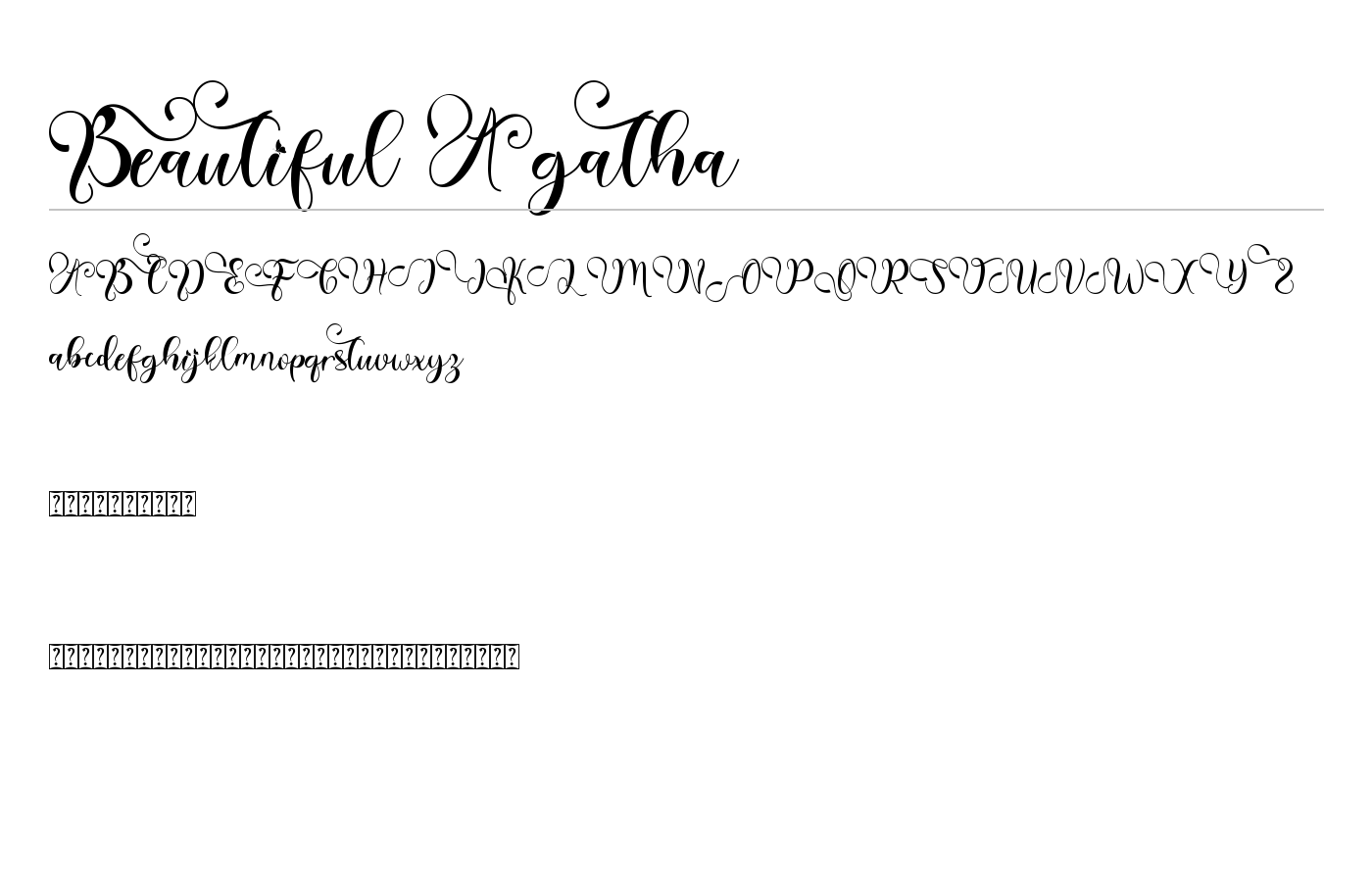
Beautiful Agatha is an elegant, decorative script font with graceful, flowing letterforms and elaborate swirls that give it a luxurious and artistic feel. Its delicate strokes and high contrast create a refined, feminine style ideal for elegant branding, wedding invitations, and sophisticated packaging where a touch of romance and creativity is desired. This font shines in headlines and logos, adding charm and personality to any design that seeks a classic yet whimsical look.
Beautiful Agatha Font
About Beautiful Agatha Font
| Font family | Beautiful Agatha Font |
| Designer | Yoga Letter 2023 (Isroni Yoga Prasetya) |